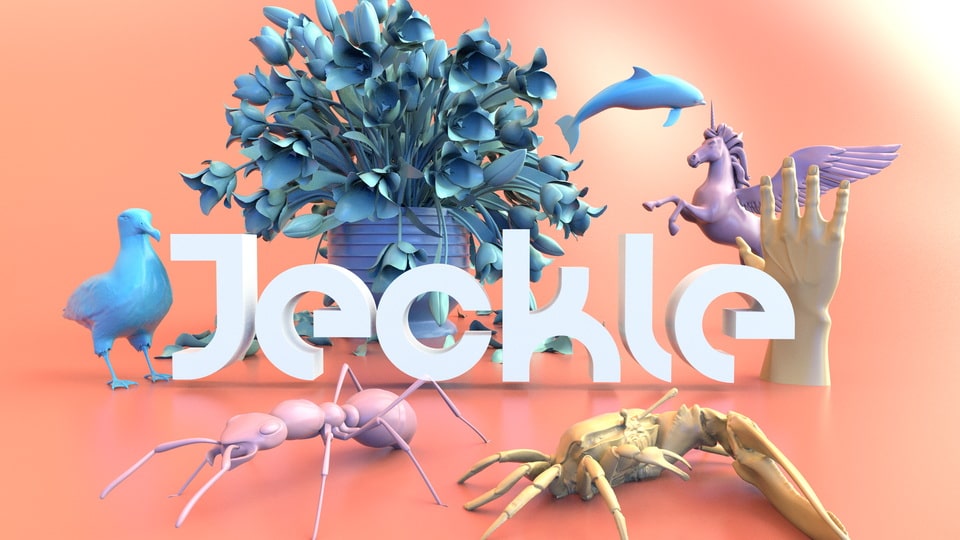
Download Jeckle font, a modern geometric typeface based on a circular shapes. Jeckle is perfect for display use and short texts that require a visual impact.
Designer: Jorge Villarreal